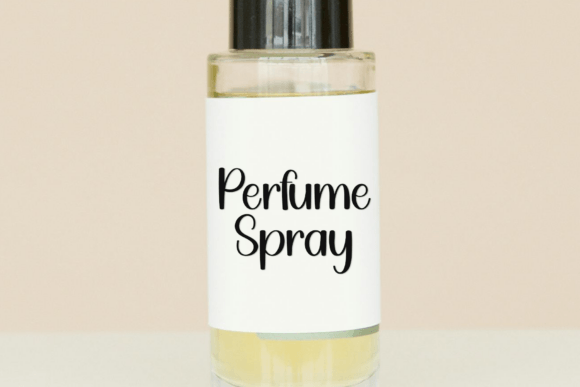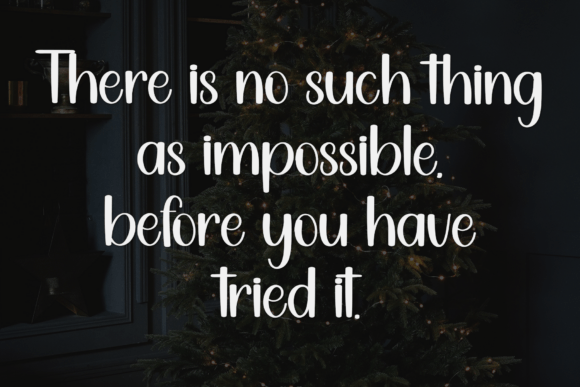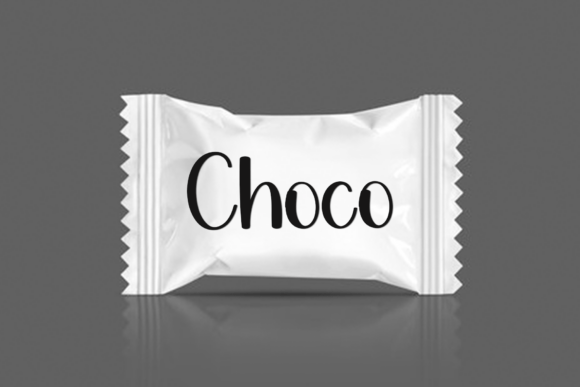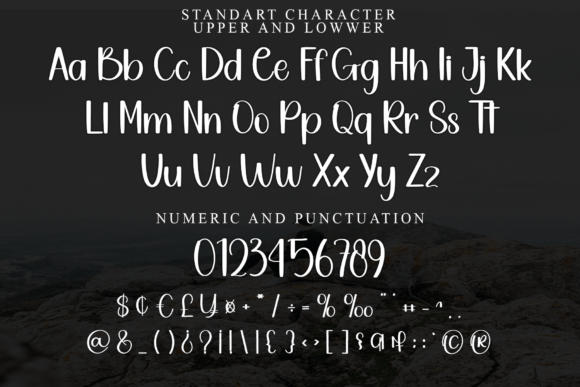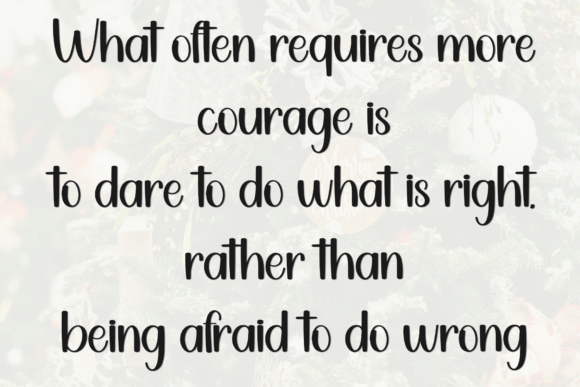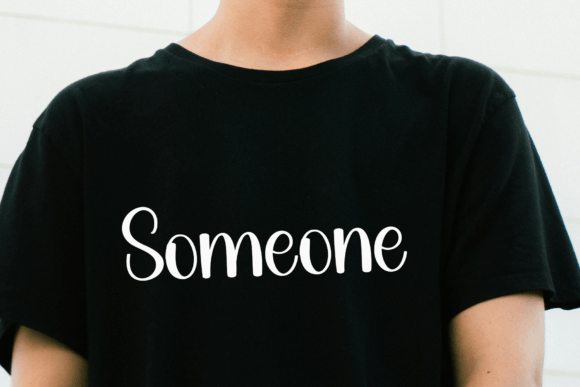
Introduction to Simple Planing Font
Have you ever stumbled upon a font that instantly sparks your creativity, and you can’t wait to dive into a new project? That’s exactly what happened to me when I discovered the Simple Planing Font. Its soft, unique strokes give it a special character that sets it apart from other fonts, making it a valuable addition to any designer’s toolkit.
As a designer, I know how crucial it is to have a reliable design resource that can elevate our creative projects. With the Simple Planing Font, you’ll be able to create stunning designs with a transparent background, perfect for crafting eye-catching graphics, logos, and more. Plus, its high-quality design makes it an excellent choice for various applications, including Windows and open-source platforms.
Key Features of Simple Planing Font
- High-quality design resource suitable for a wide range of applications, from branding to publishing
- Designed for use in digital and print media, including websites, social media, and advertising materials
- Simple and elegant design makes it an ideal choice for minimalist and modern creative projects
Honest Review: Simple Planing Font
I recently came across the Simple Planing Font and was excited to try it out for a creative project. As a designer, I’m always on the lookout for high-quality design resources that can elevate my work.
Here’s what I like about the Simple Planing Font:
- ✨ The font has a transparent background, making it easy to use on any design background.
- ✨ The font is highly versatile and can be used for a wide range of creative projects.
- ⚠️ The font only comes in a limited number of weights, which may not be suitable for all design projects.
- ⚠️ The font is not as customizable as some other design resources I’ve used.
Overall, I’m impressed with the Simple Planing Font. While it may have some limitations, it’s a high-quality design resource that can add a lot of value to your creative projects. If you’re looking for a free font with a transparent background, the Simple Planing Font is definitely worth checking out.
Tips for Getting the Most Out of Simple Planing Font
For optimal results, use the Simple Planing Font in conjunction with a high-quality image or background. Experiment with different font sizes and colors to achieve a unique look. This free download is a valuable addition to any designer’s toolkit.
Common Use Cases for Simple Planing Font
The Simple Planing Font is versatile and can be used in a variety of creative projects, including business cards, brochures, and website headers. Its transparent background feature makes it ideal for use in layered designs.